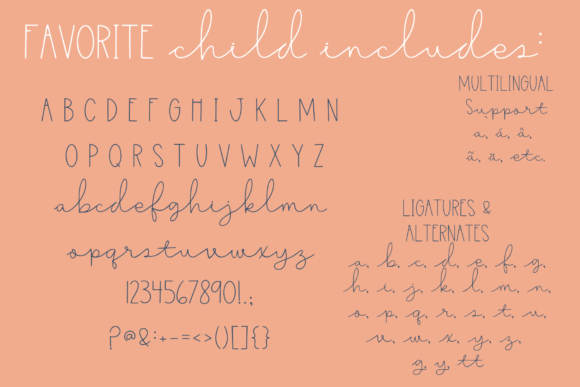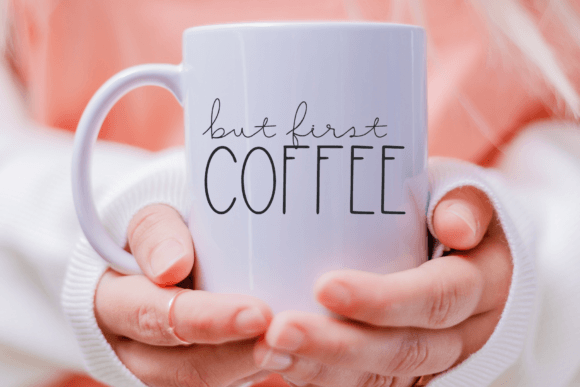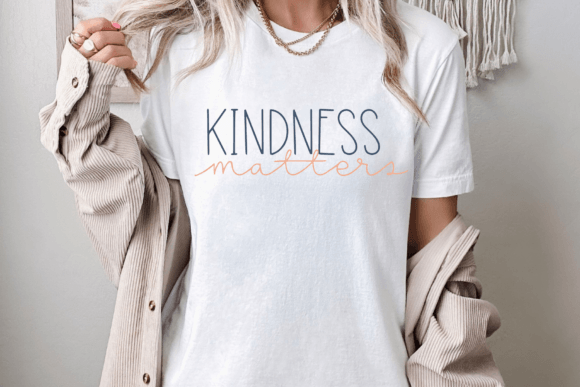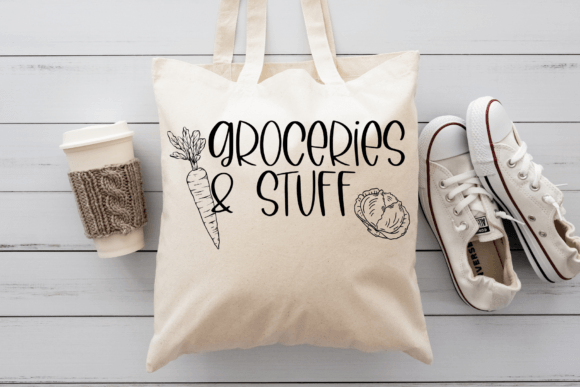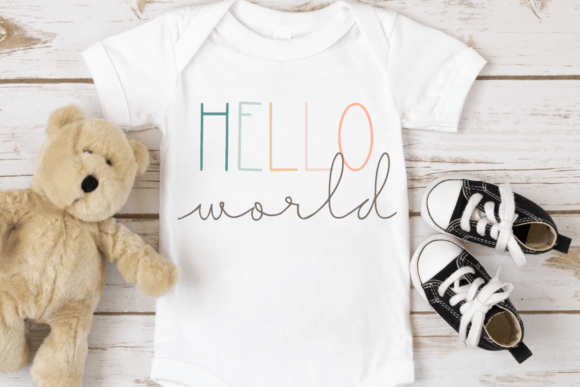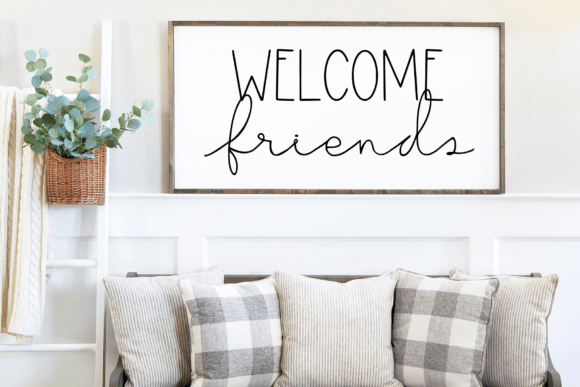
Introduction to Favorite Child Font
Favorite Child is a cute and lovely script font that radiates playfulness and joy.
With its charming curves and whimsical strokes, Favorite Child is perfect for adding a touch of personality and sweetness to invitations, greeting cards, social media graphics, and any project that requires a playful and delightful touch This font is PUA encoded which means you can access all glyphs and swashes effortlessly.
Favorite Child Font offers exceptional quality and versatility, making it a valuable addition to your design toolkit. Whether you’re creating for personal projects or commercial use, Favorite Child Font delivers professional results.